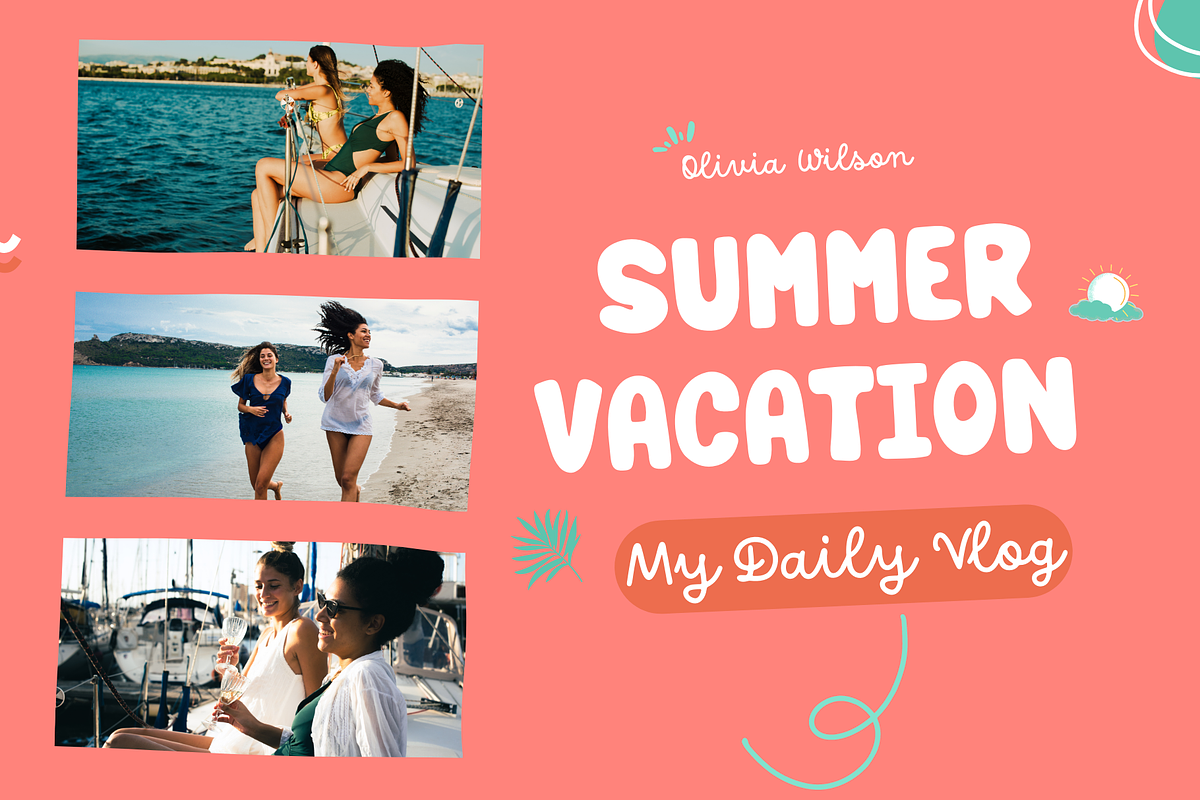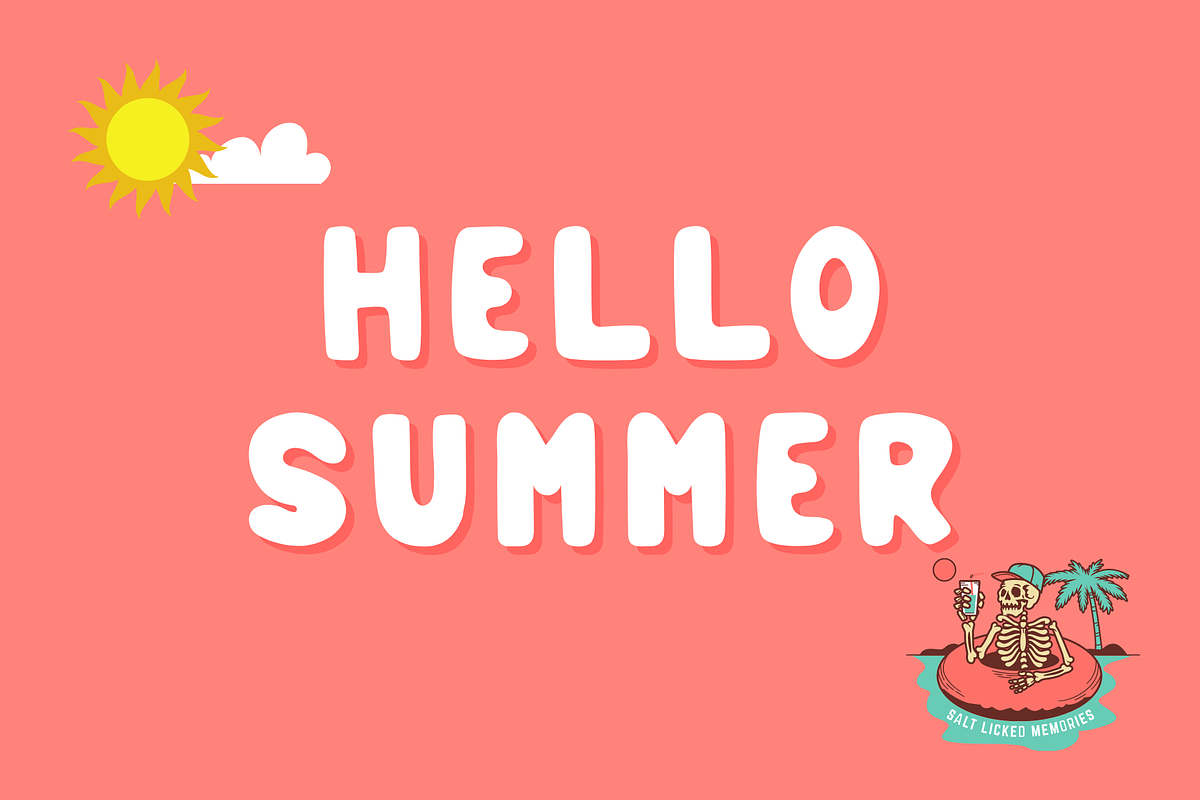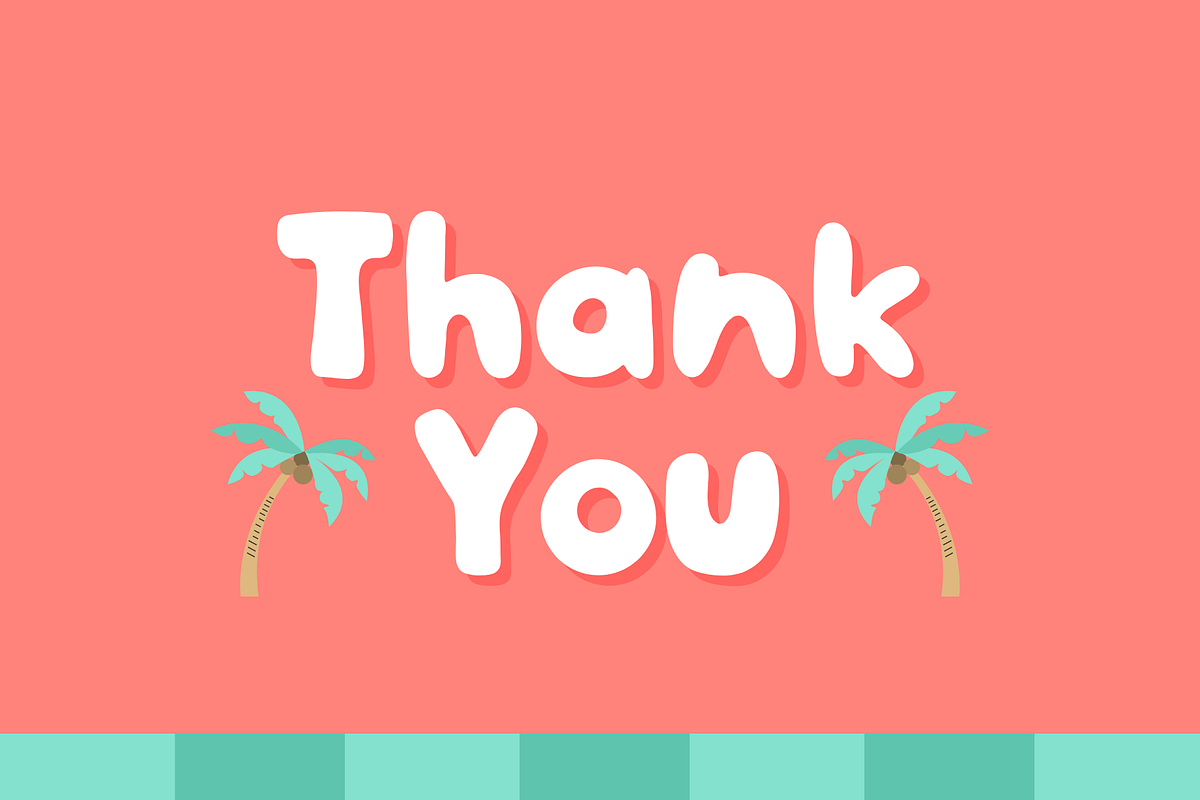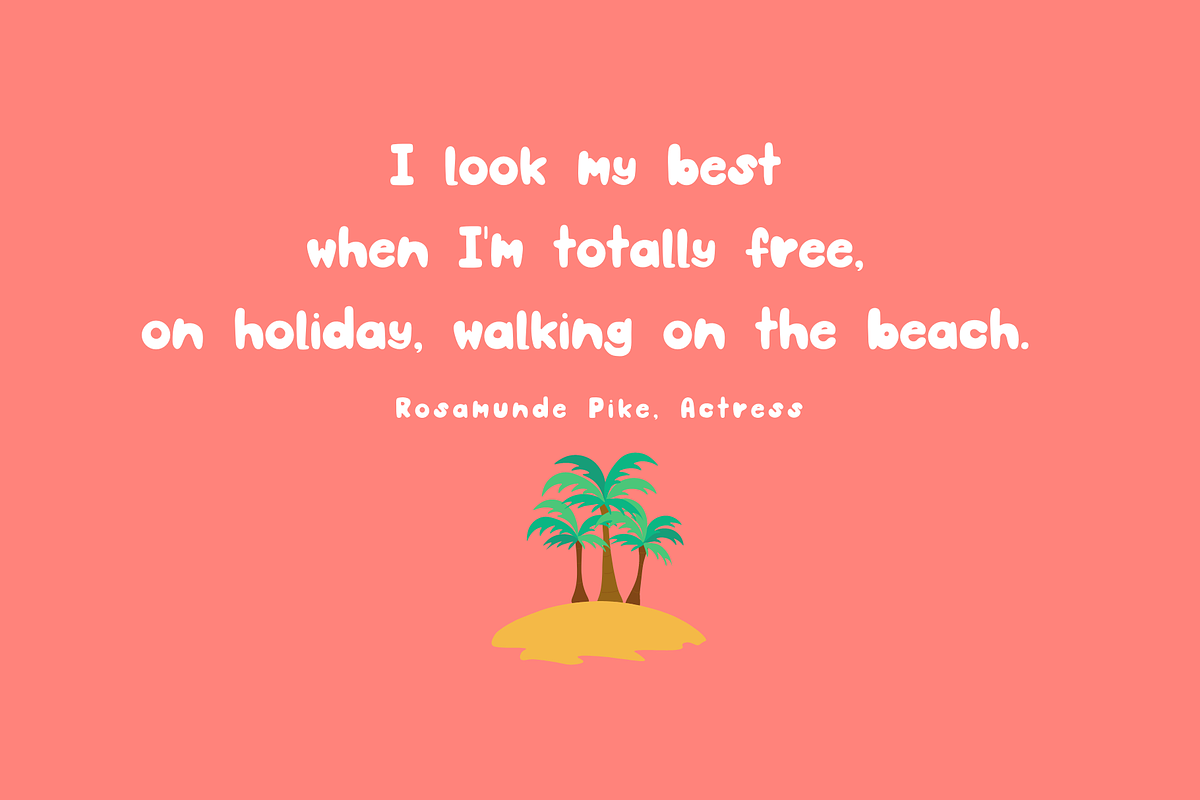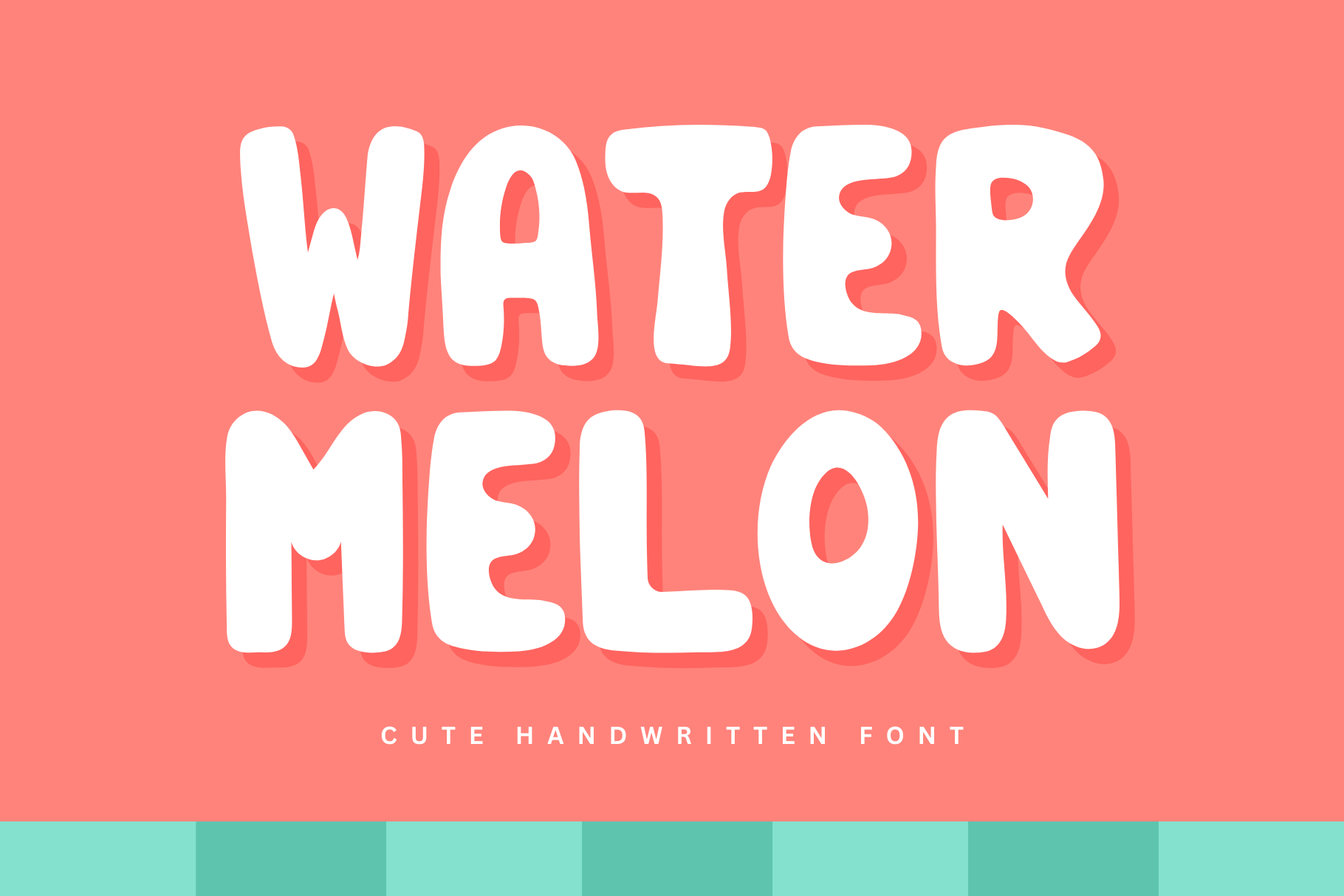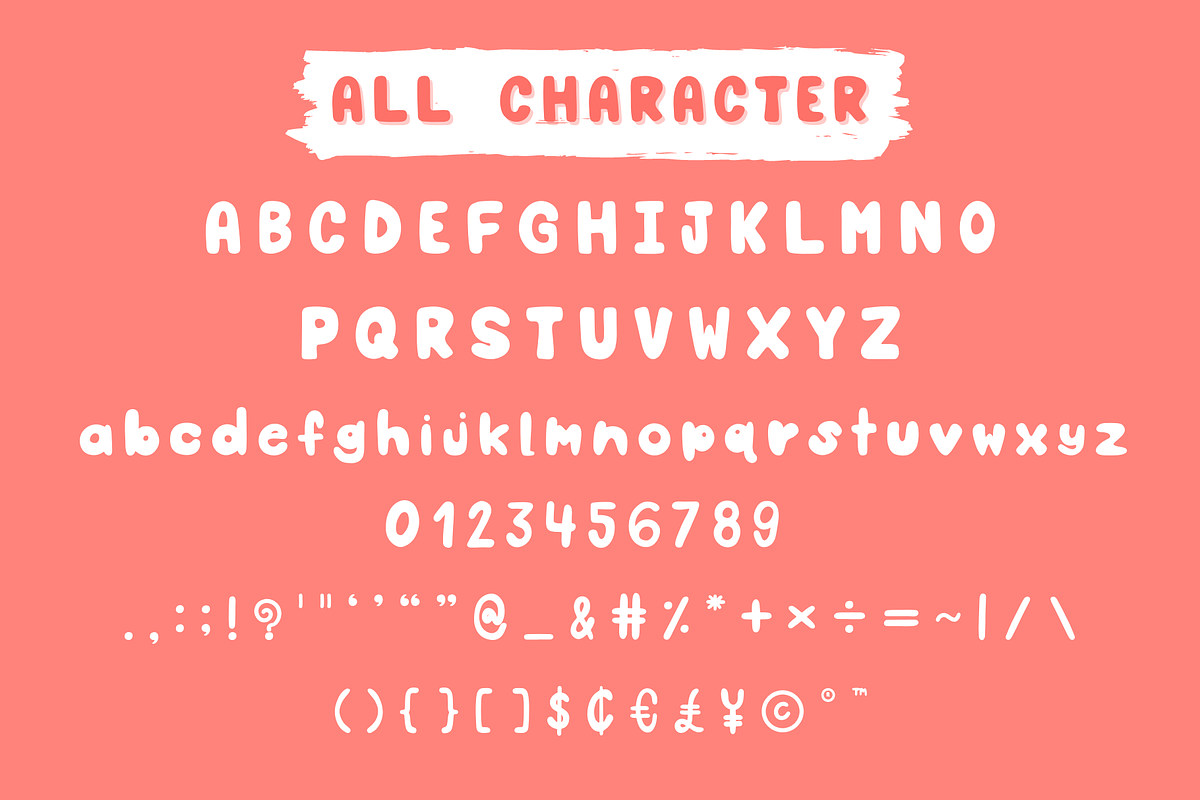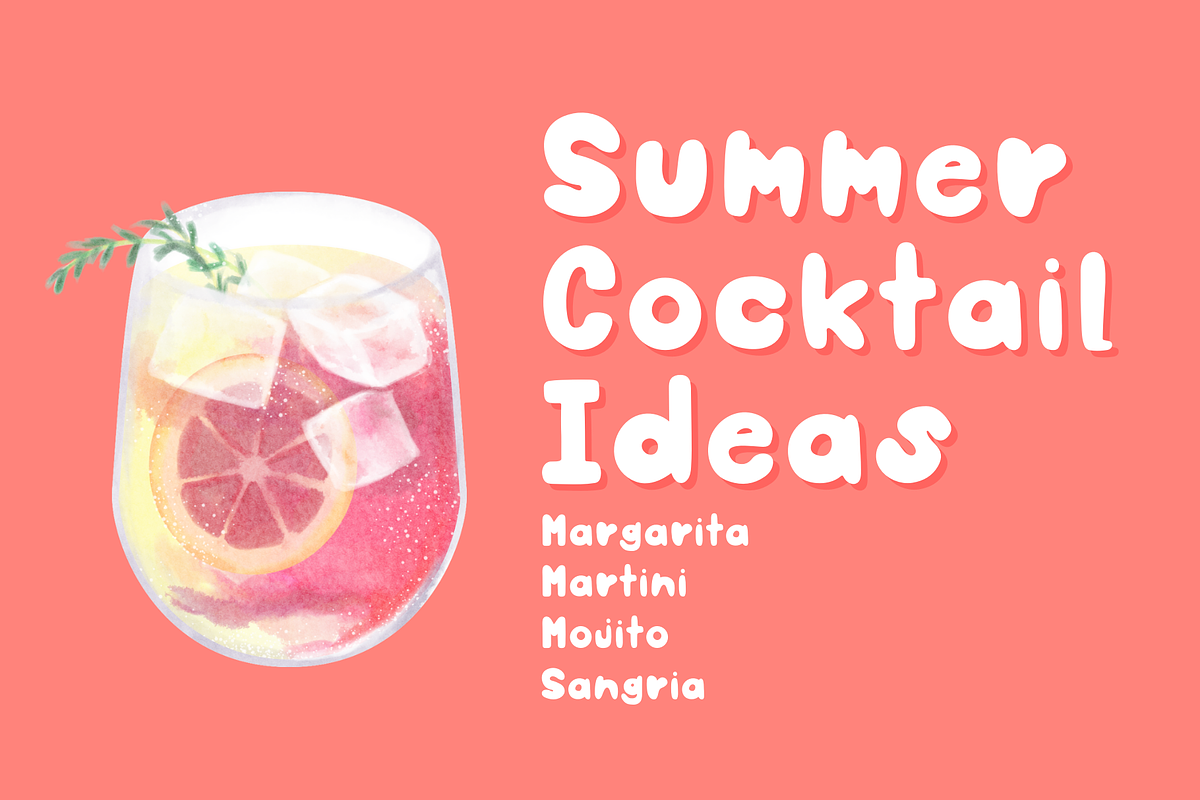
Watermelon - Cute Handwritten Font
Watermelon is a charming and playful typeface that evokes the cheerful and refreshing essence of summertime. This font is easy to read, with clear and legible letterforms, and stylish appeal that makes it a versatile option for various creative projects. It's cheerful and lively appearance adds a touch of joy and freshness to any design.